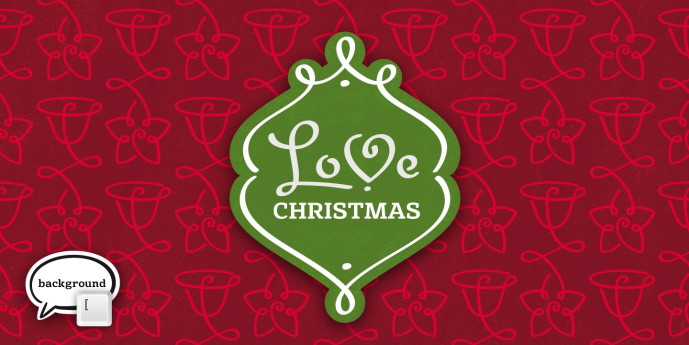
LoveChristmas Font
LoveChristmas Font, Following the success of our LoveHearts, valentine inspired ornaments, we decided to show our love for Christmas. With more than 170 hand drawn unique designs, LoveChristmas is the perfect choice for designing Christmas greeting cards and gift wraps as well as letter signatures and accessories.
174 Characters